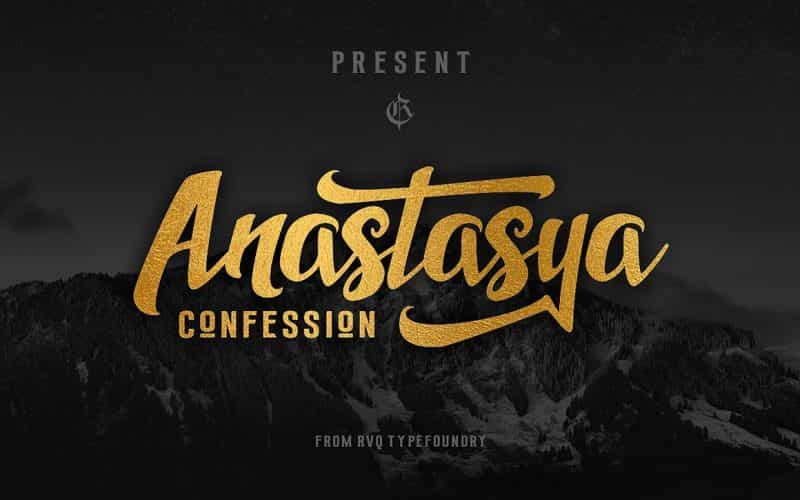
Discover Anastasya Confession Font, part of the Brush collection—a versatile and unique font perfect for adding a personal touch to your projects. Download it for free and enjoy crafting designs with style, from invitations to social media posts. This font is available exclusively for personal use, giving you the freedom to create without limits. Unlock your creativity with Anastasya Confession Font today!
Anastasya Confession is a new font from Rvq Typefoundry, and it has the classy, elegant and vintage feel character set. To obtain the perfect balance, just mix the uppercase and lowercase then add to it with alternative glyphs and play around with swash.